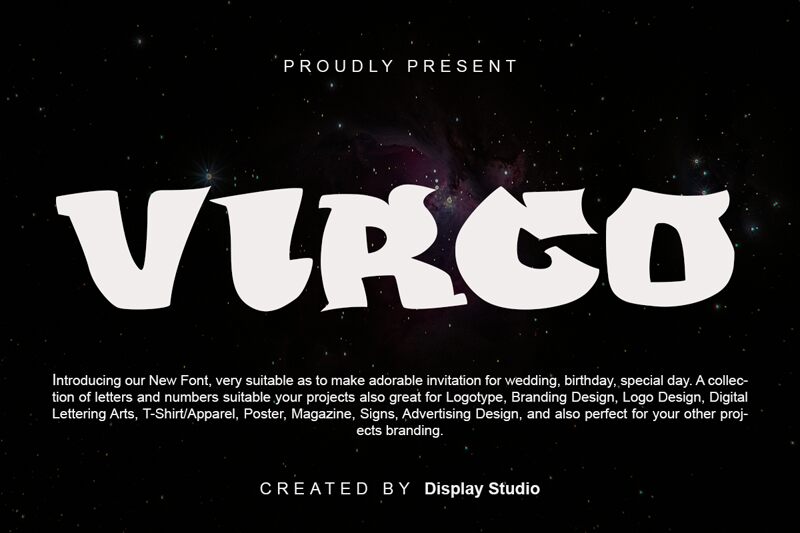
Virgo
Virgo, a bold and wide distorted graffiti font designed by Display Studio, is the perfect choice for projects that need a unique and edgy feel. From posters to apparel designs, Virgo will add style and personality to any project.